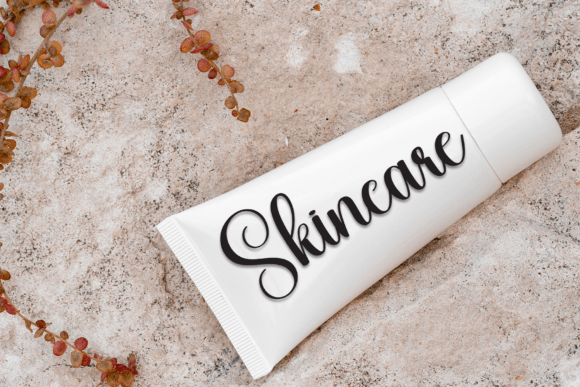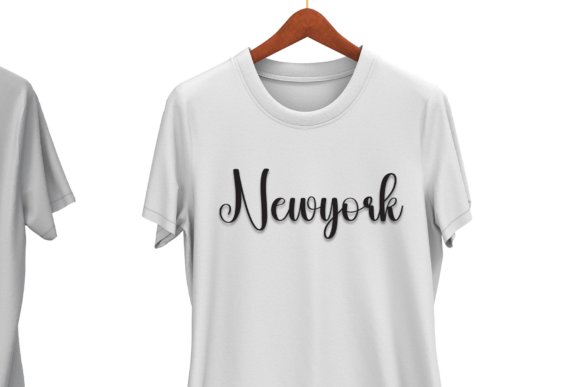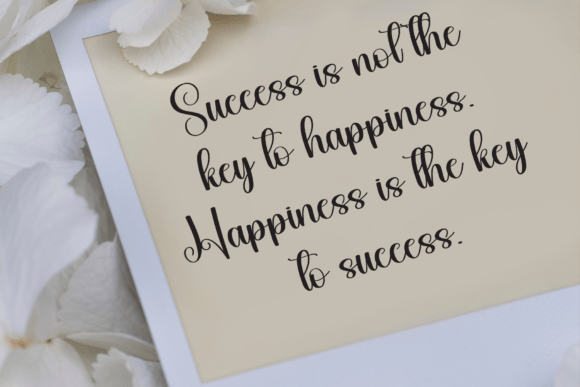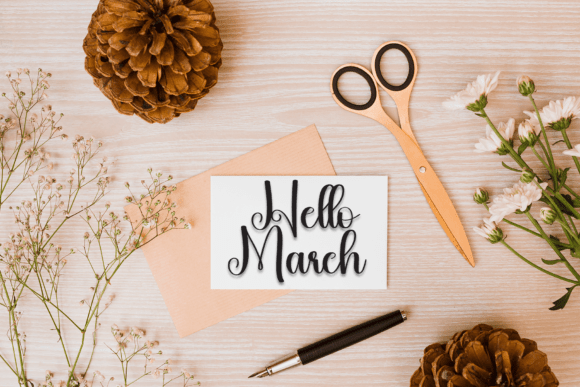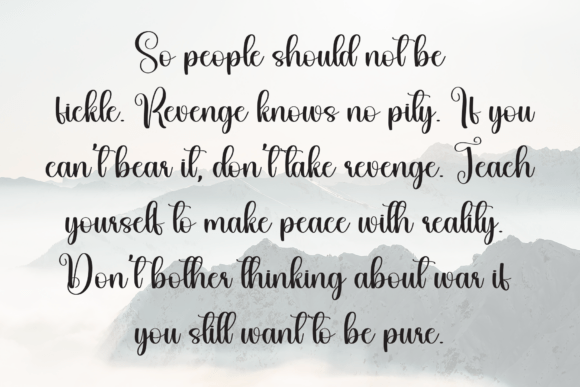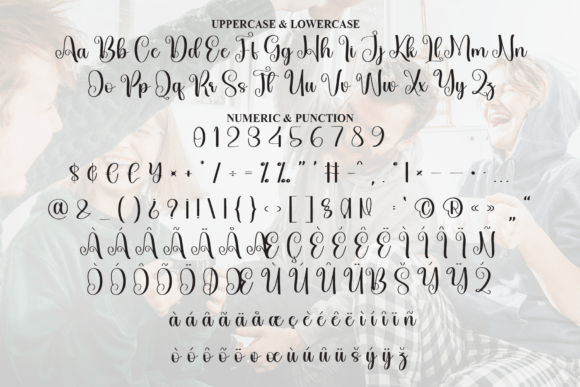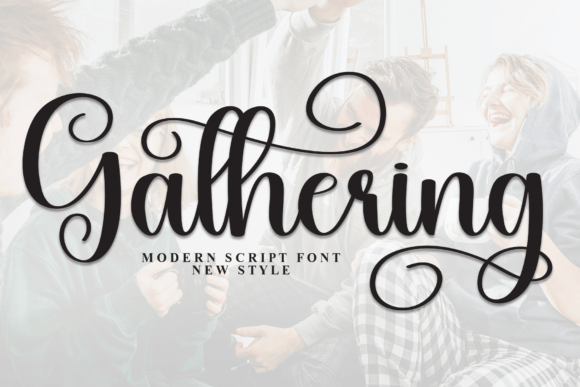
Gathering Font: Elevate Your Designs with Elegance and Sophistication
In the world of typography, fonts play a crucial role in conveying the tone and personality of a design. For crafters, designers, and creative enthusiasts, finding the perfect font can be a daunting task. However, if you’re looking for a modern script font that exudes warmth and sophistication, look no further than Gathering Font. In this article, we’ll delve into the features, benefits, and uses of Gathering Font, and explore how it can elevate your designs to the next level.
What is Gathering Font?
Gathering Font is a beautiful, modern script font that boasts flowing swashes and refined strokes. Its elegant design makes it perfect for a variety of creative projects, including invitations, quotes, logos, and social media graphics. With its unique blend of classic and contemporary elements, Gathering Font brings a sense of warmth and sophistication to any design.
Key Features of Gathering Font
- Flowing Swashes: Gathering Font features beautiful, flowing swashes that add a touch of elegance to any design.
- Refined Strokes: The font’s refined strokes provide a sense of sophistication and luxury, making it perfect for high-end designs.
- Modern Script Style: Gathering Font’s modern script style makes it versatile and suitable for a wide range of creative projects.
- Easy to Read: Despite its elegant design, Gathering Font is easy to read, making it perfect for body text and captions.
Uses of Gathering Font
Gathering Font is an incredibly versatile font that can be used in a variety of creative projects, including:
- Invitations: Whether you’re planning a wedding, birthday party, or baby shower, Gathering Font is perfect for creating beautiful, elegant invitations.
- Quotes and Typography: The font’s elegant design makes it ideal for showcasing quotes, lyrics, and other typographic elements.
- Logos and Branding: Gathering Font’s unique blend of classic and contemporary elements makes it perfect for creating logos and branding materials that exude sophistication and elegance.
- Social Media Graphics: Use Gathering Font to create stunning social media graphics, including Instagram posts, Facebook covers, and Twitter headers.
Benefits of Using Gathering Font
So, why choose Gathering Font for your creative projects? Here are just a few benefits of using this beautiful font:
- Instant Elegance: Gathering Font adds an instant touch of elegance and sophistication to any design.
- Versatility: The font’s versatility makes it suitable for a wide range of creative projects, from invitations to logos and social media graphics.
- Unique Design: The font’s unique design ensures that your creative projects stand out from the crowd.
Tips for Using Gathering Font
To get the most out of Gathering Font, here are a few tips to keep in mind:
- Pair with Neutral Colors: Pair Gathering Font with neutral colors, such as white, black, or gray, to create a clean and elegant design.
- Experiment with Swashes: Don’t be afraid to experiment with the font’s flowing swashes to add a touch of elegance to your design.
- Use for Headlines and Titles: Use Gathering Font for headlines and titles to add a touch of sophistication and elegance to your design.
In conclusion, Gathering Font is a beautiful, modern script font that is perfect for designers, crafters, and creative enthusiasts. With its flowing swashes, refined strokes, and elegant design, it’s ideal for a wide range of creative projects, from invitations to logos and social media graphics. Whether you’re looking to add a touch of elegance and sophistication to your designs, Gathering Font is an excellent choice.